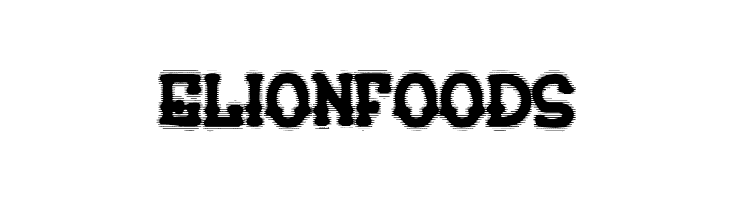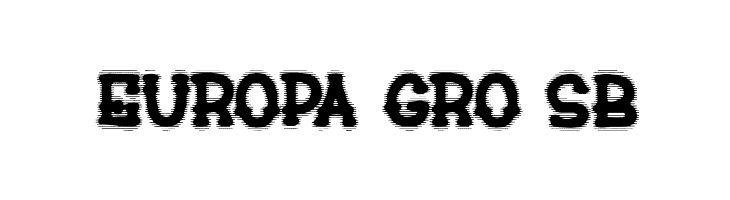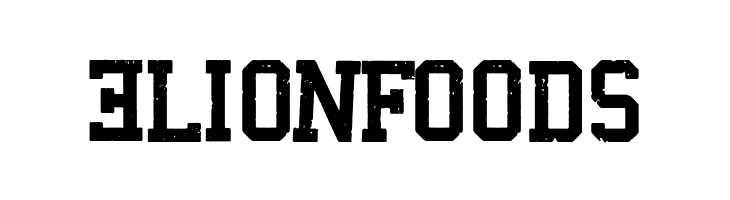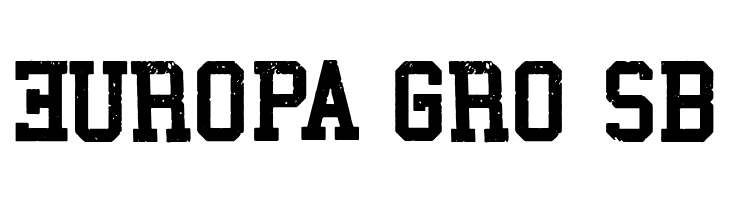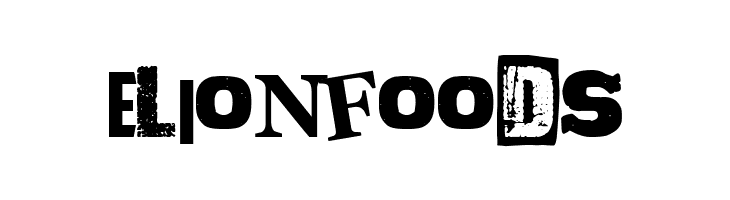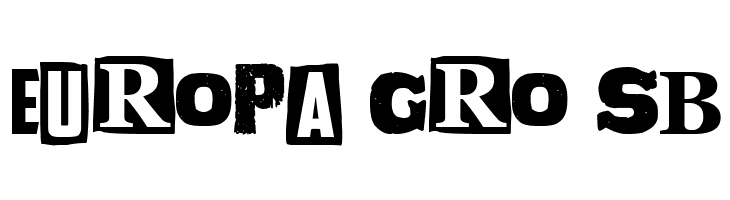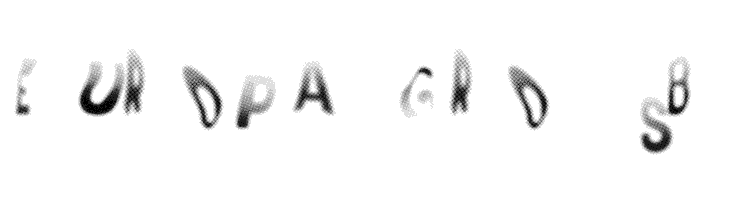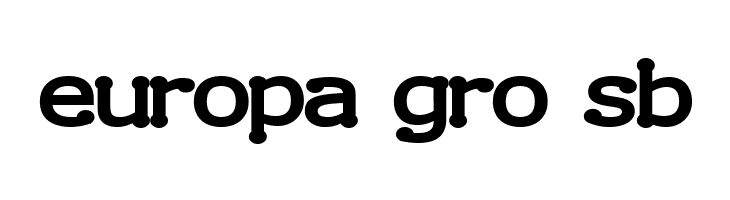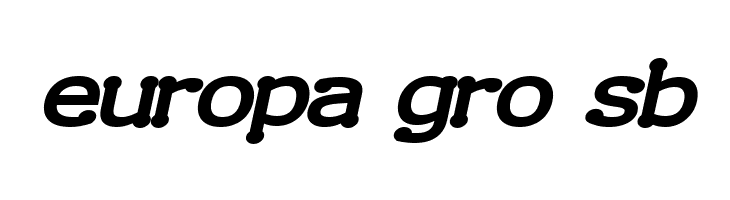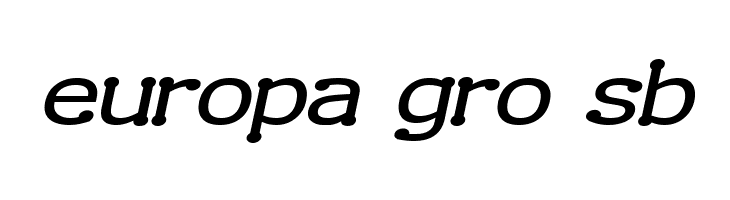
A bold, playful font with rounded edges and dot embellishments.
A bold, italicized font with a dynamic and modern style.
A playful and dynamic italic font with rounded edges and consistent stroke width.
A bold, eclectic font with a ransom note style and varying textures.
A bold, distressed font with a vintage collegiate style.
A bold, textured font with a grunge-like, hand-drawn appearance.
A playful, whimsical font with uneven, distorted letterforms and a brush-like texture.